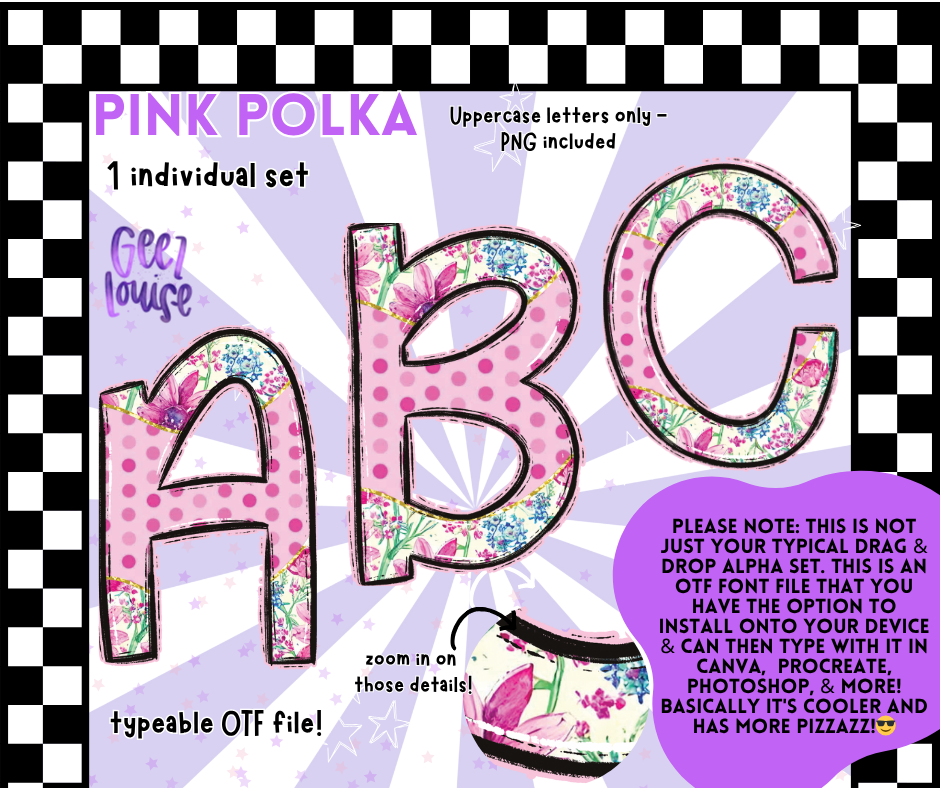
Cute, chaotic, and totally typeable. Pink Polka is a full uppercase font dotted with florals, checkerboard accents, and bubblegum-punk energy. It's not just a pretty alpha set—it’s a legit OTF file you can actually install and type with.
💅 Why It's a Vibe:
Pink Polka serves nostalgia with attitude—perfect for tee designs, digital collages, zines, or cursed diary entries. It’s more than cute... it’s cleverly chaotic and install-ready.
Designed for pixel-perfectionists and pastel punks. Pink Polka is here to make your words pop, your posts sparkle, and your projects punchy.